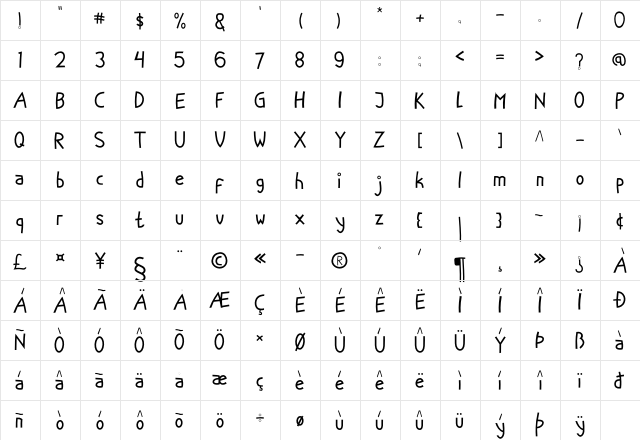
Little Fish Thin Regular
| Foundry | Display Studio |
| Designer | Display Studio |
Design Context for Little Fish Thin Typeface
Little Fish Thin is a composed and adaptable typeface that performs quietly and consistently across a wide range of design contexts. The delicate stroke weight brings airiness and refinement to layouts.